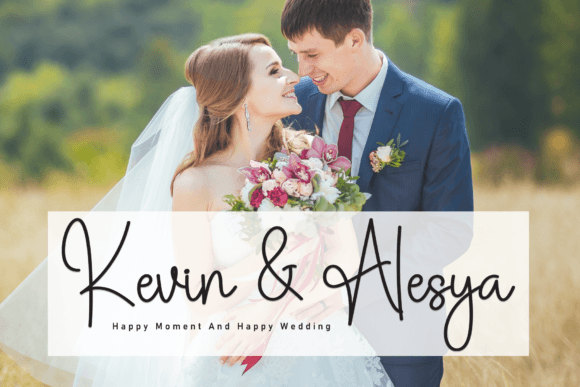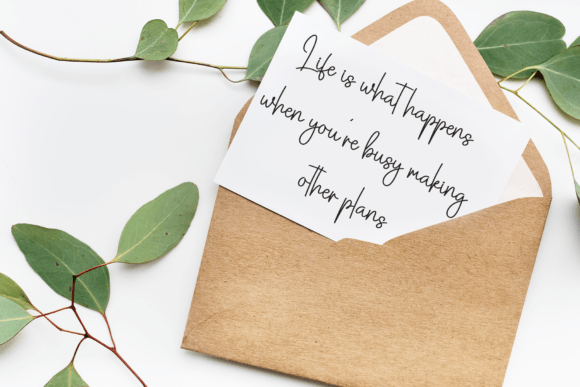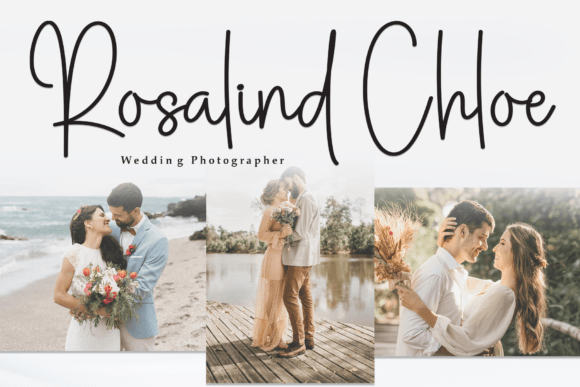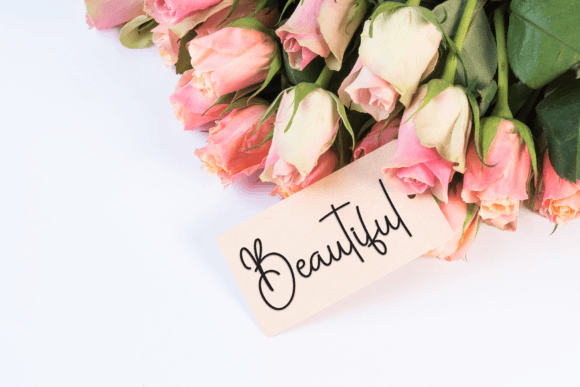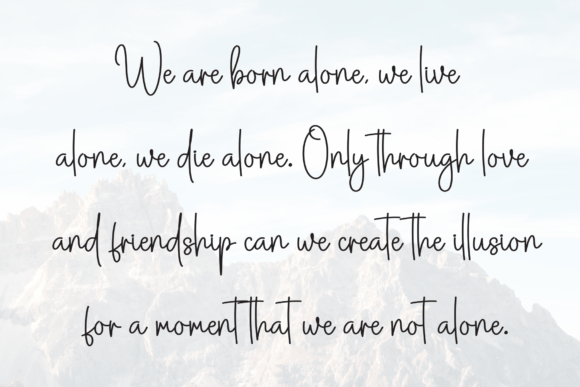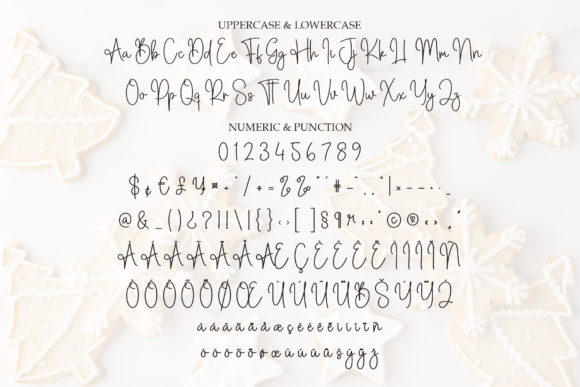
Biscuit Christmas Font: A Charming Handwritten Font for Your Holiday Designs
Are you looking for a font that captures the warmth and joy of the holiday season? Look no further than the Biscuit Christmas font! This charming and festive handwritten font is perfect for adding a touch of handmade cheer to your Christmas cards, invitations, and festive projects.
The Essence of the Season
Biscuit Christmas font is designed to evoke a sense of coziness and celebration, making it ideal for holiday designs. With its delicate strokes and whimsical curves, this font brings to mind the warmth and joy of the season. Whether you’re creating Christmas cards, invitations, or festive projects, Biscuit Christmas font is sure to add a touch of magic to your designs.
As a designer or crafter, you’re always on the lookout for unique and festive fonts to add to your holiday designs. Biscuit Christmas font is perfect for a variety of projects, including:
- Christmas cards and invitations
- Festive projects, such as holiday gift tags and decorations
- Holiday-themed blog posts and articles
Why Choose Biscuit Christmas Font?
So why choose Biscuit Christmas font for your holiday designs? Here are just a few reasons:
- Unique and Festive: Biscuit Christmas font is a one-of-a-kind font that’s sure to add a touch of festivity to your holiday designs.
- Handwritten Charm: With its delicate strokes and whimsical curves, Biscuit Christmas font has a charming handwritten feel that’s perfect for holiday designs.
- High-Quality: Biscuit Christmas font is a high-quality font that’s designed to produce crisp and clear results, even at small sizes.
Tips for Using Biscuit Christmas Font
Here are a few tips for using Biscuit Christmas font in your holiday designs:
- Pair with Other Fonts: Biscuit Christmas font pairs well with other festive fonts, such as bold and sans-serif fonts.
- Use at Large Sizes: Biscuit Christmas font looks best at large sizes, such as headlines and titles.
- Add Decorations: Consider adding decorations, such as holly or snowflakes, to your designs to make them more festive.
Biscuit Christmas font is a charming and festive handwritten font that’s perfect for adding a touch of handmade cheer to your holiday designs. With its delicate strokes and whimsical curves, this font captures the essence of the season, evoking a sense of coziness and celebration. Whether you’re a designer or crafter, Biscuit Christmas font is sure to be a valuable addition to your font collection.
Key Features of Biscuit Christmas Font
- Charming and festive handwritten font
- Delicate strokes and whimsical curves
- Perfect for holiday designs, including Christmas cards and invitations
- High-quality font with crisp and clear results
| Font Type | Handwritten |
| Font Style | Script |